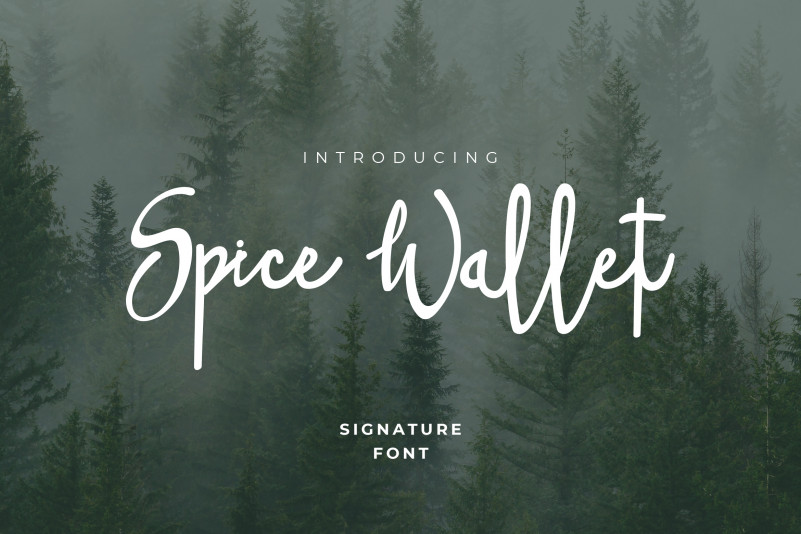
Spice Wallet Font
Spice Wallet is casual handmade font that is perfect for any modern design including logo, branding, posters, wedding invitations. It’s also could be good for both fun and semi-formal text.